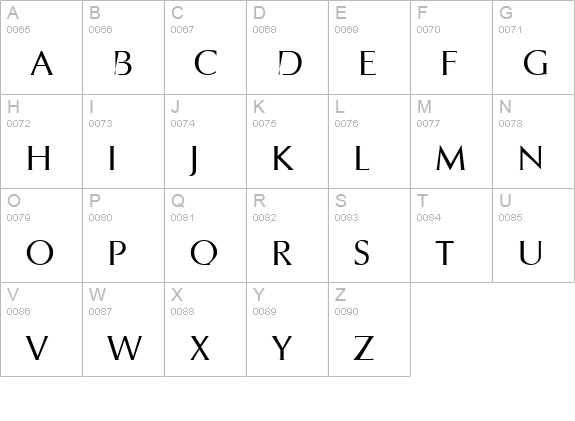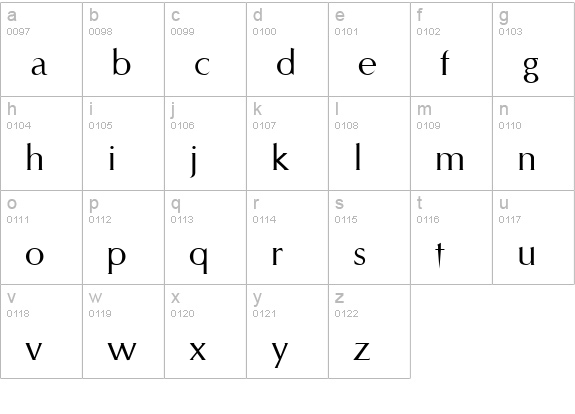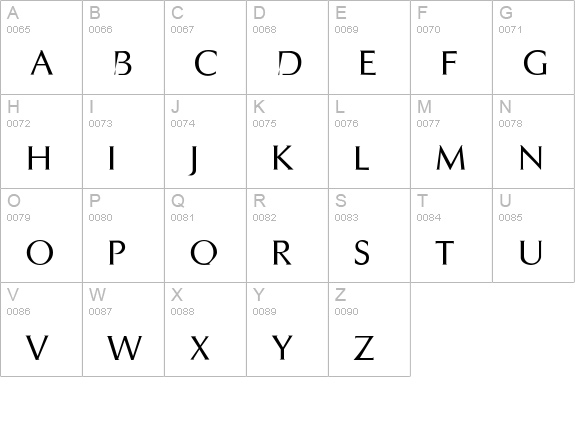
Styletto Font Details
Styletto is a modern and elegant font that exudes sophistication and style. Its sleek lines and graceful curves make it perfect for a wide range of projects, from branding to editorial design. With a timeless appeal and versatile design, Styletto is sure to add a touch of class to any project. What sets Styletto apart is not just its aesthetic appeal, but also its accessibility. This font is available for free download at FontsMarket.com, making it easy for designers and creatives to access this stunning typeface without any cost. Whether you're working on a professional project or a personal endeavor, Styletto is a fantastic choice that won't break the bank. Add a touch of elegance and sophistication to your designs with Styletto font - now available for free at FontsMarket.com.